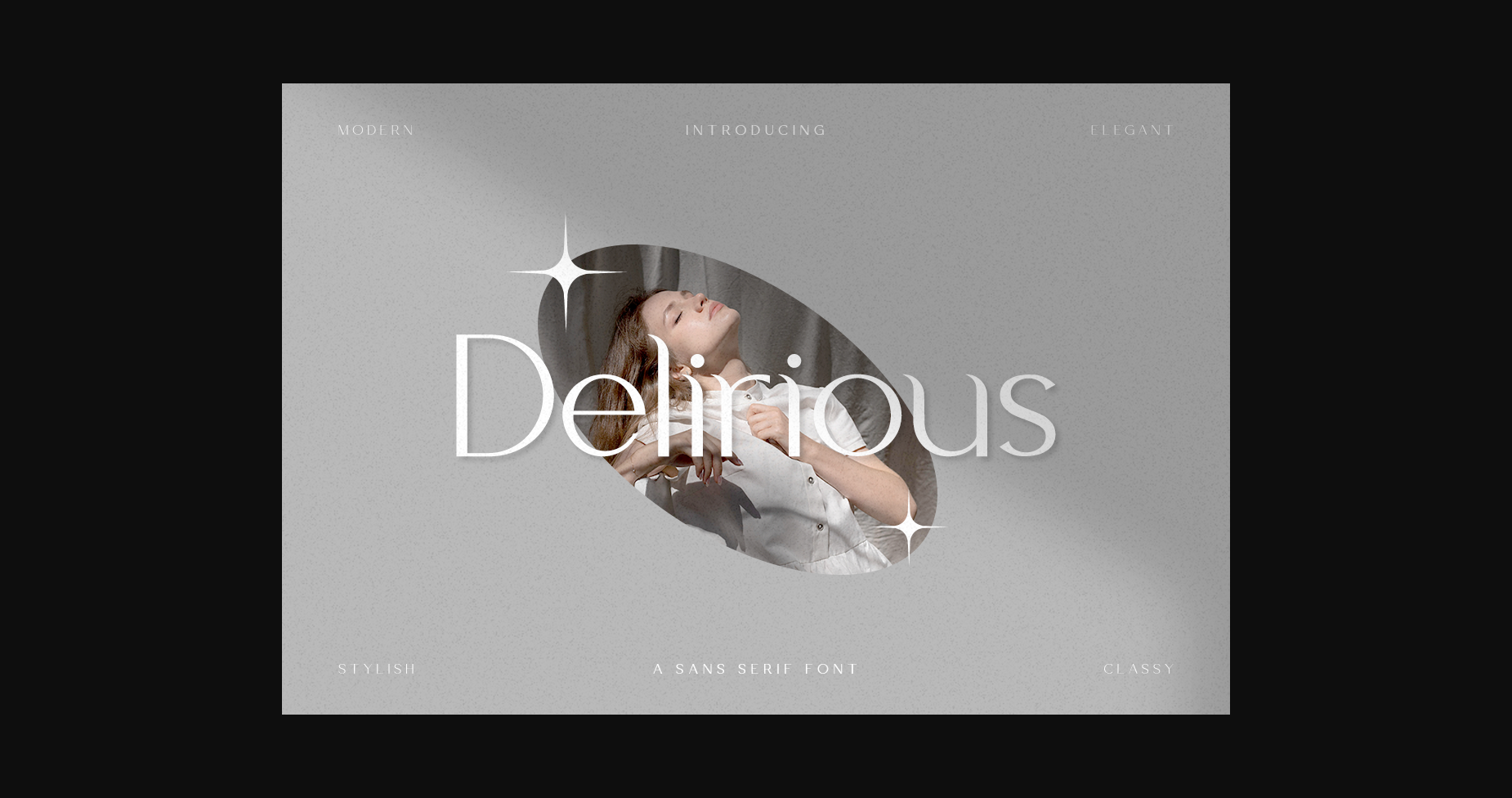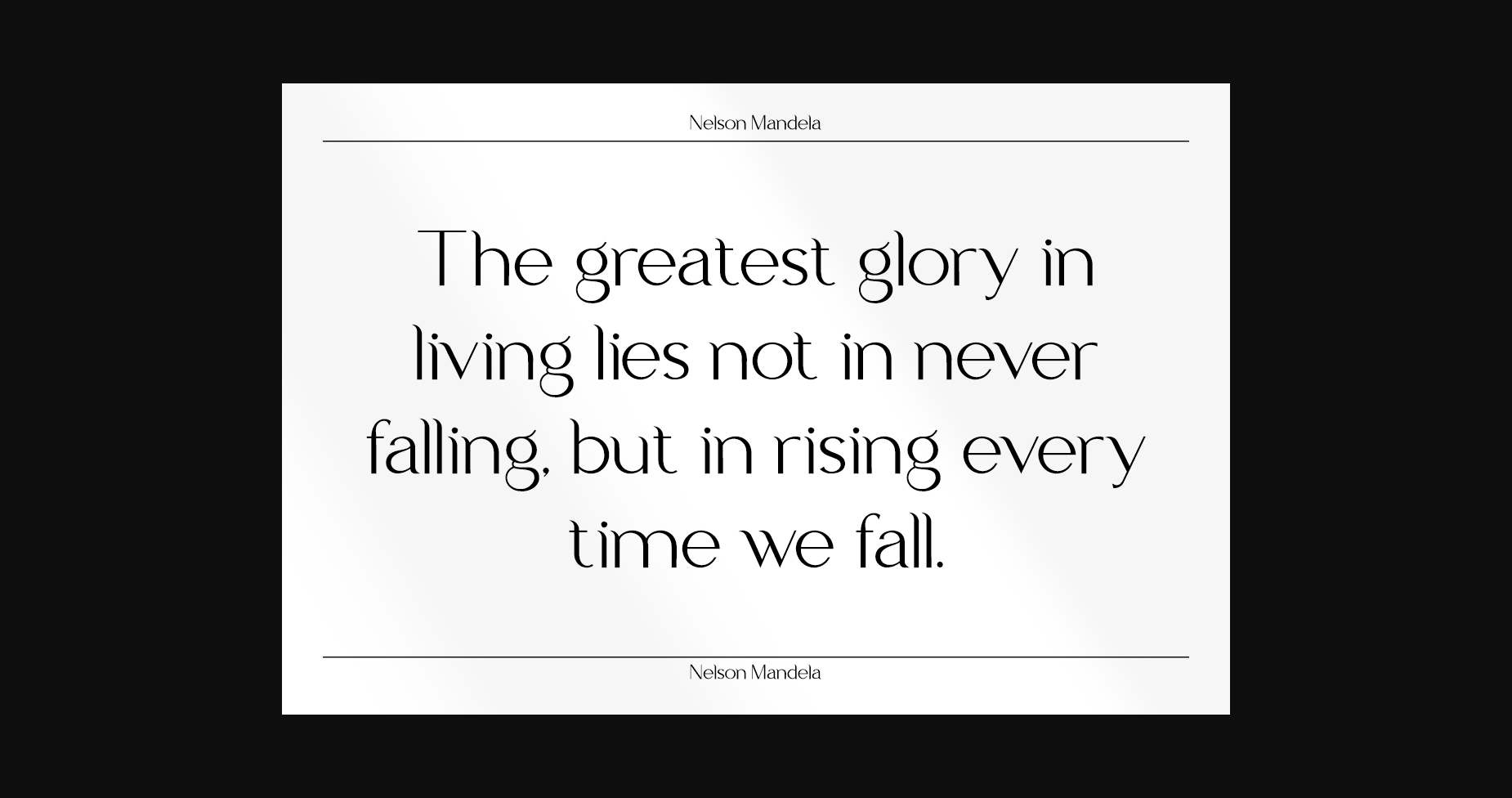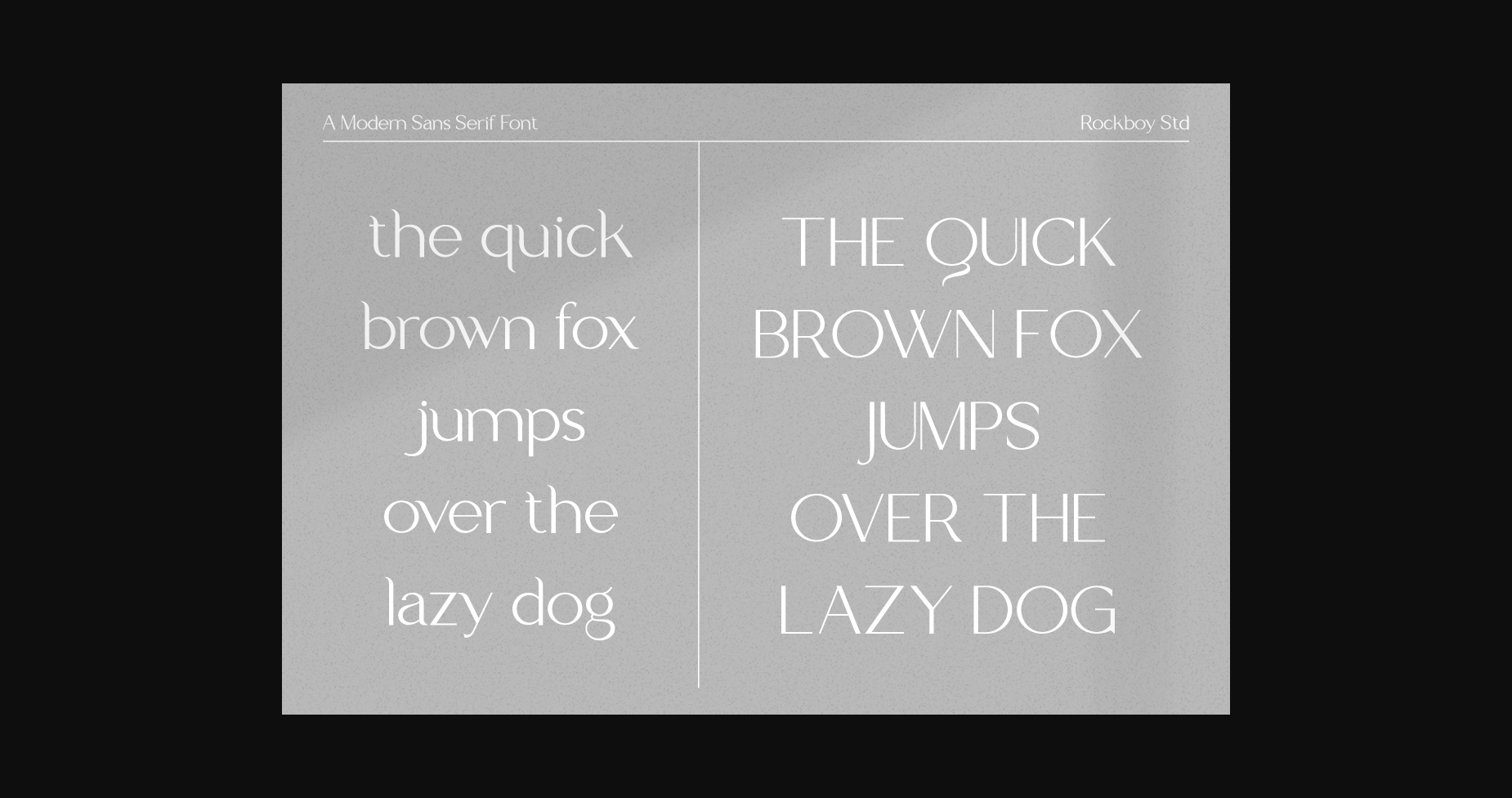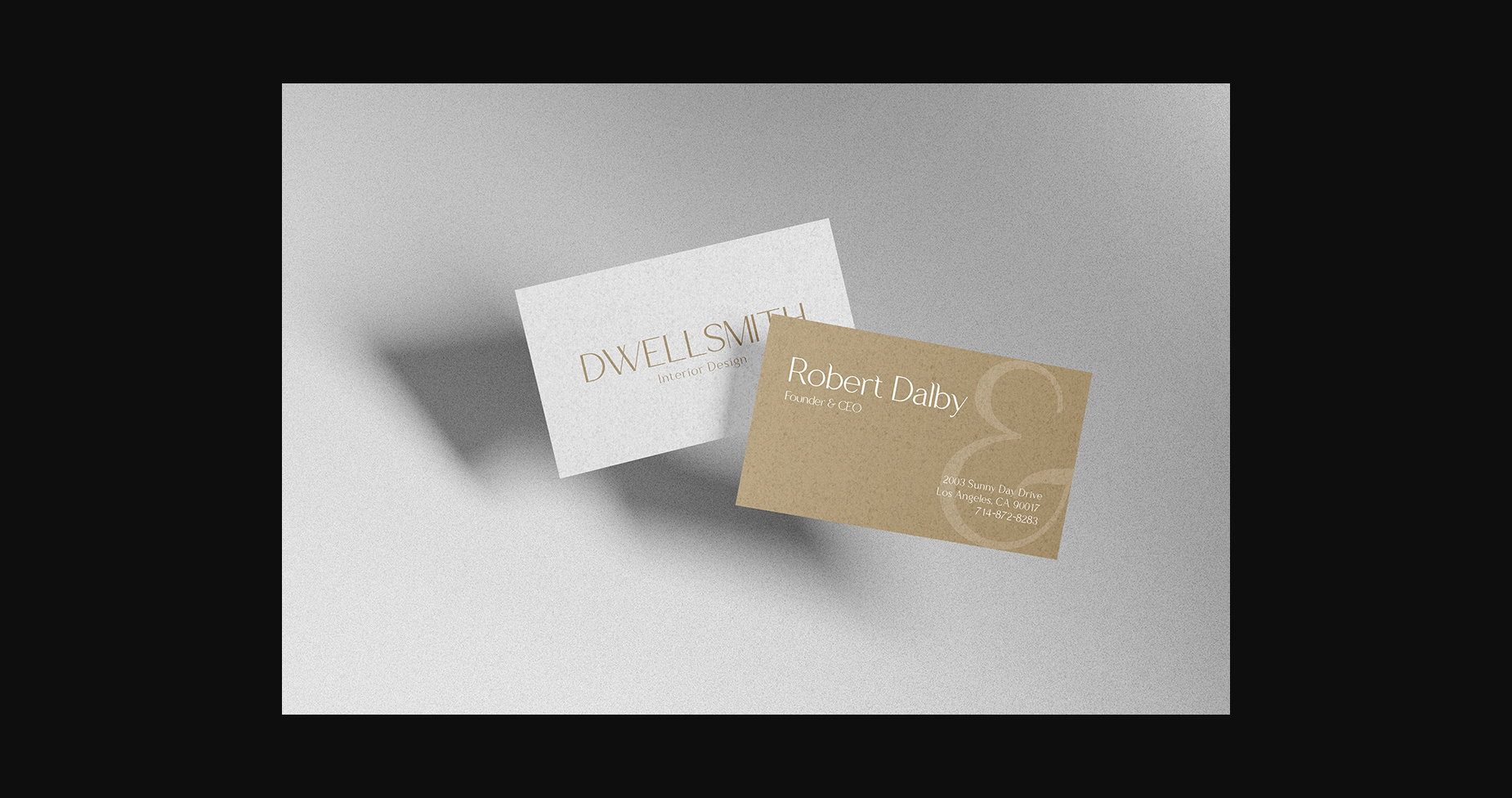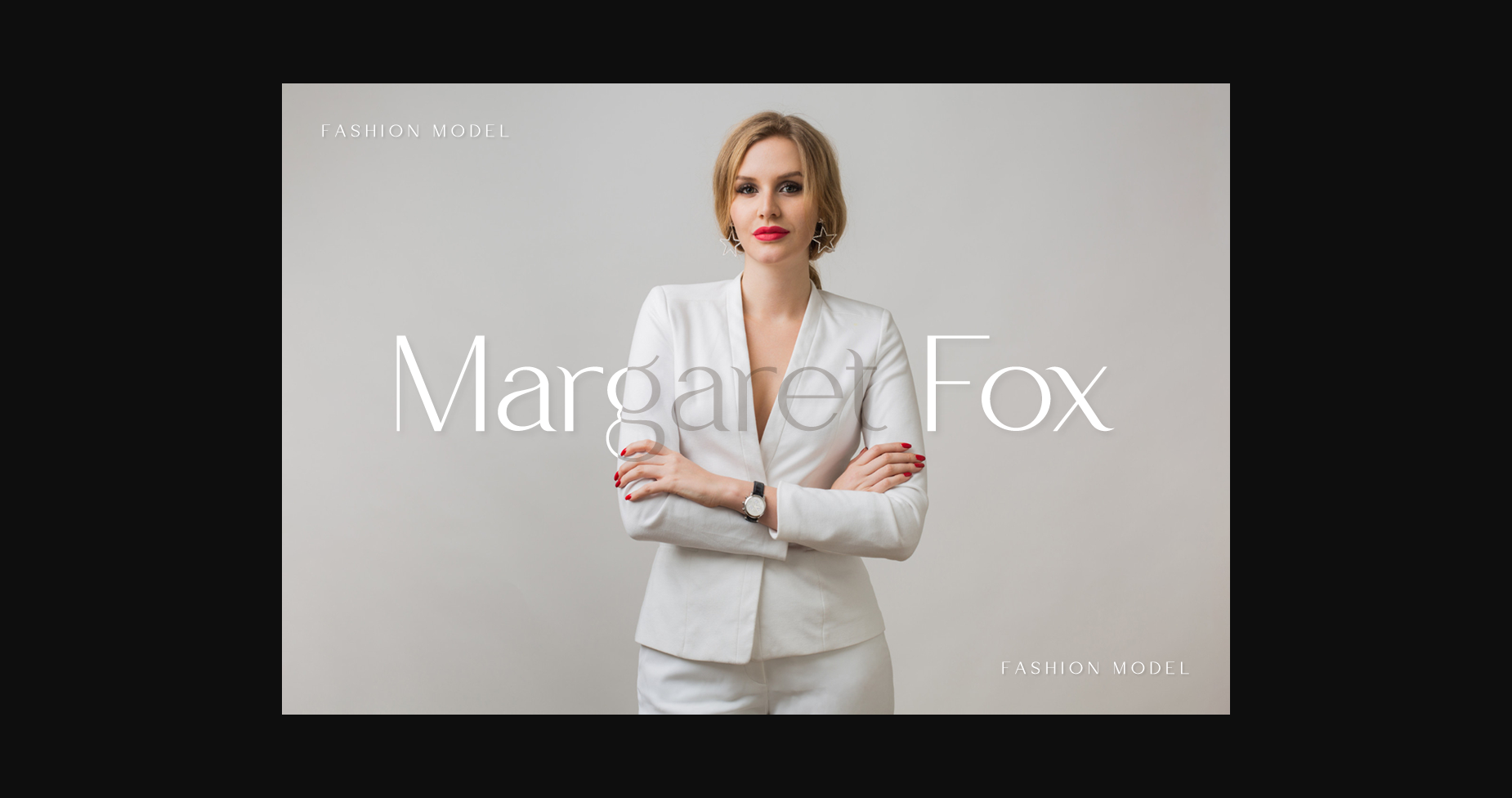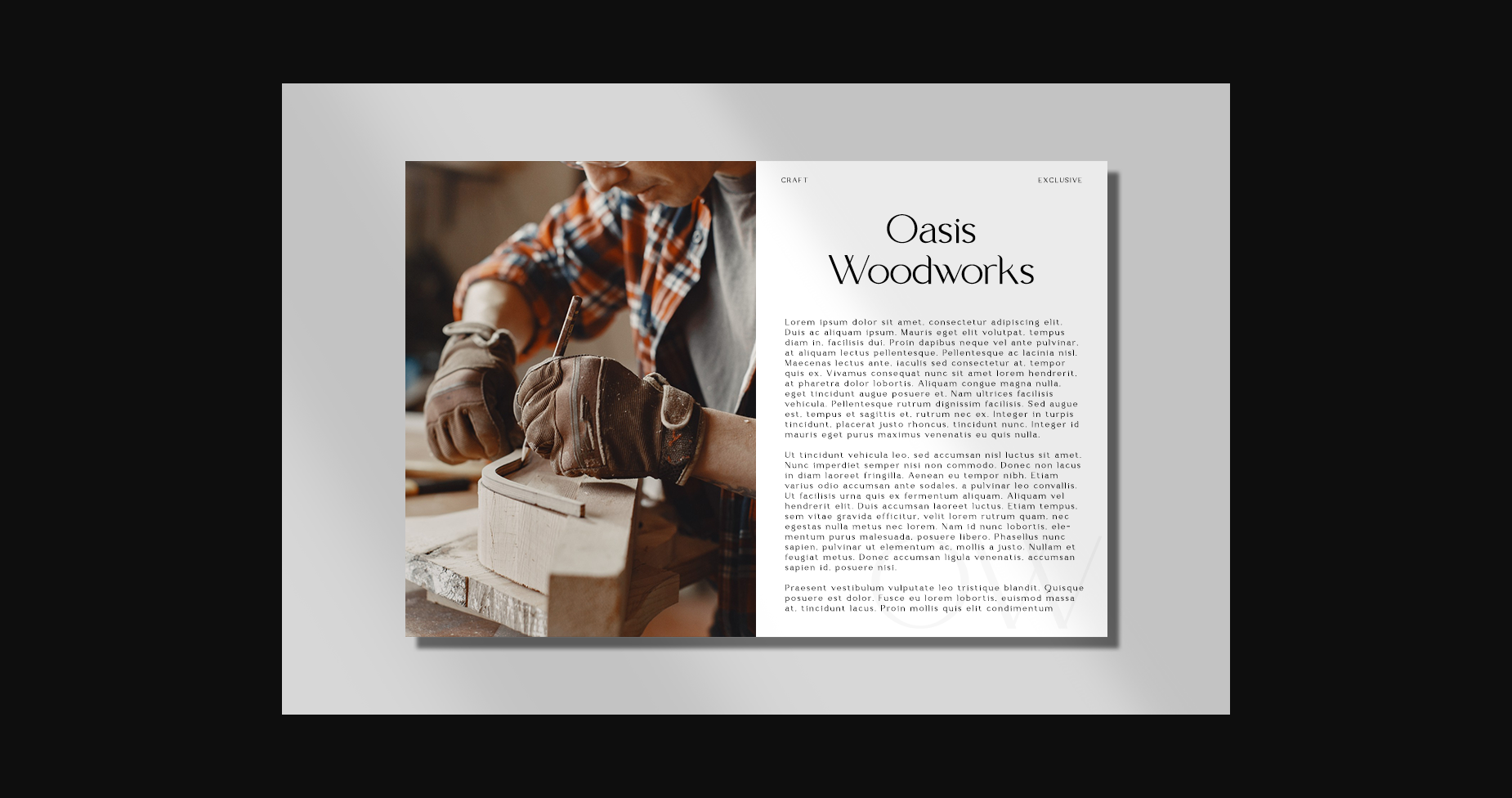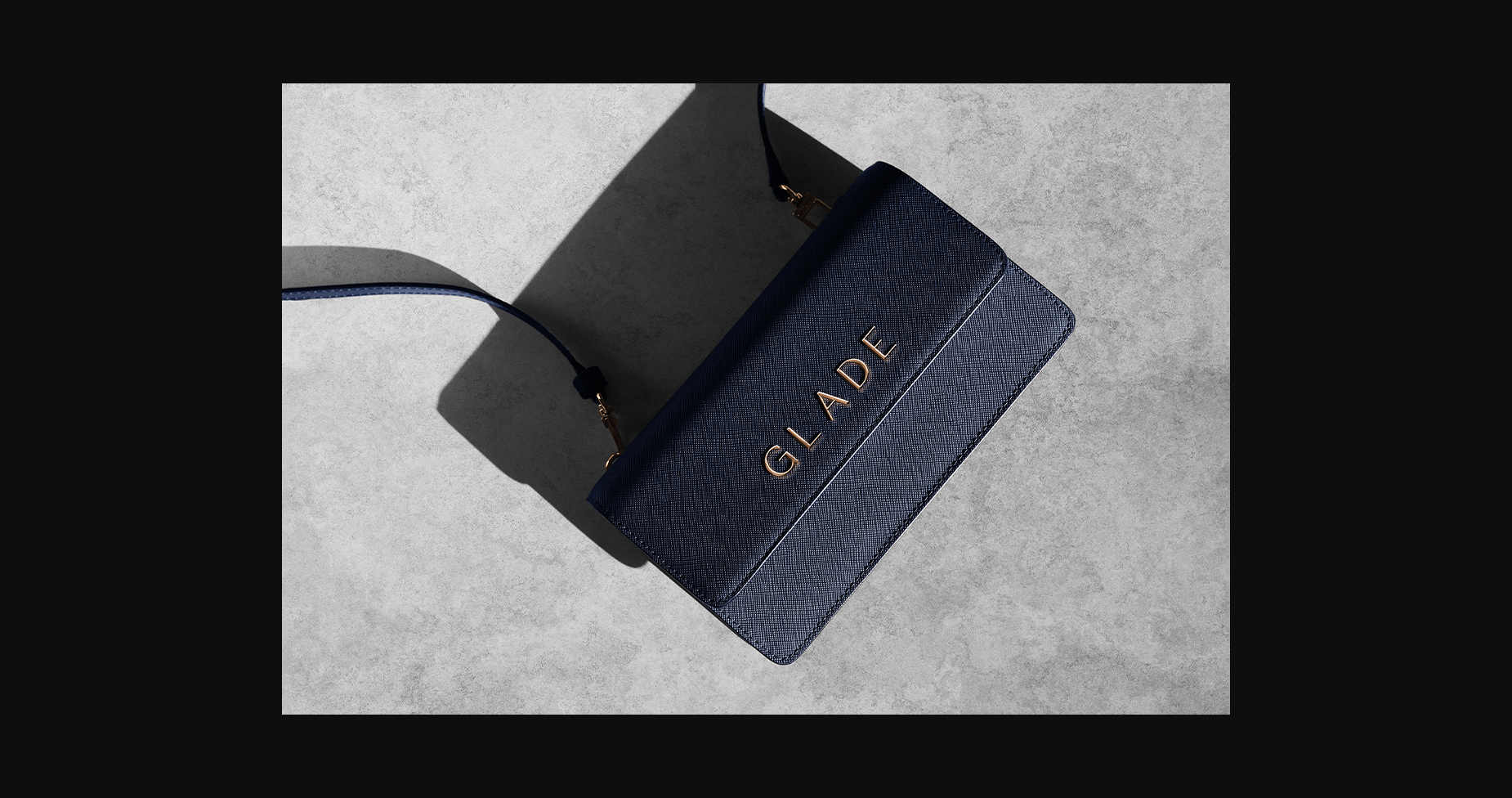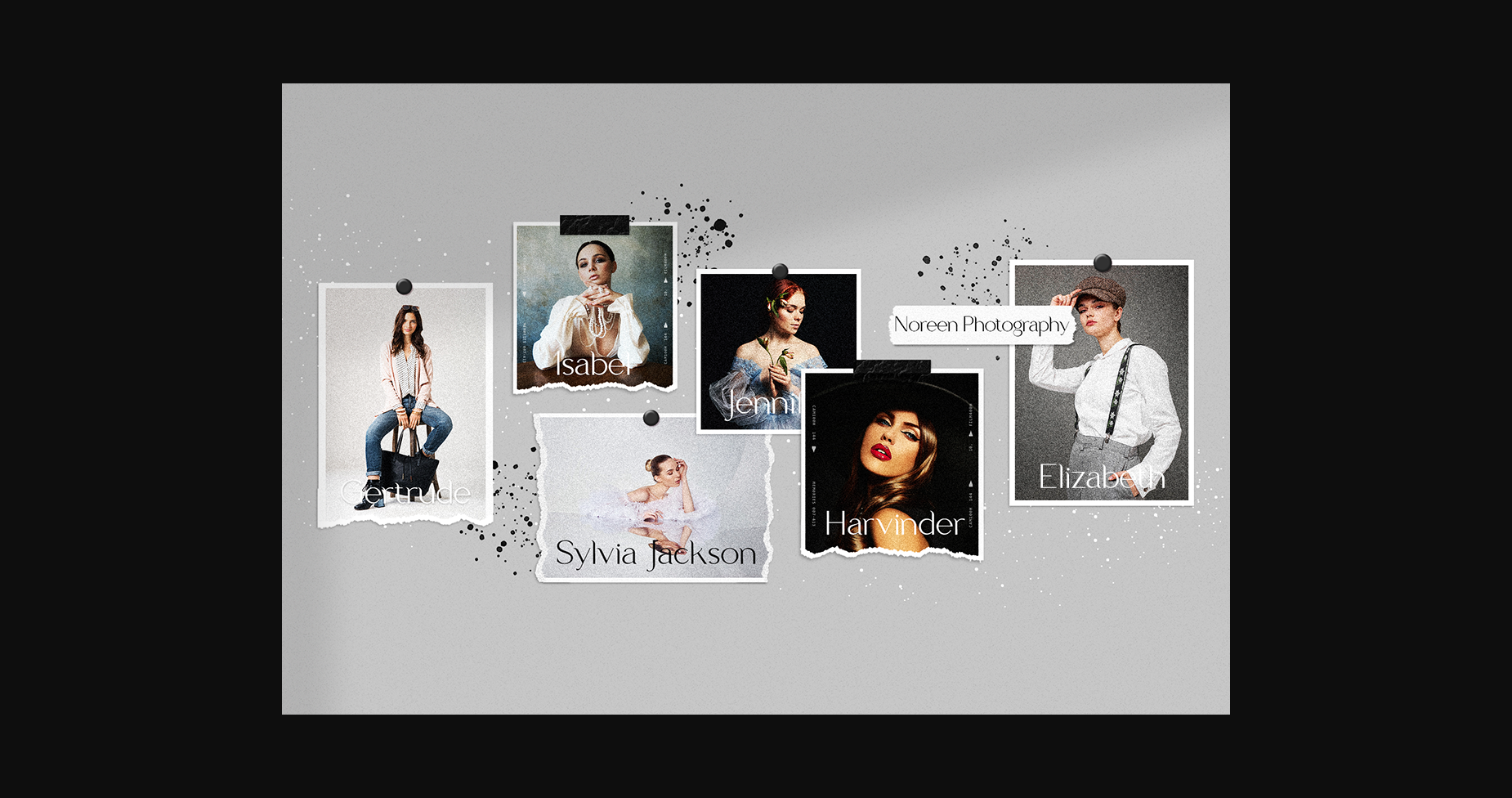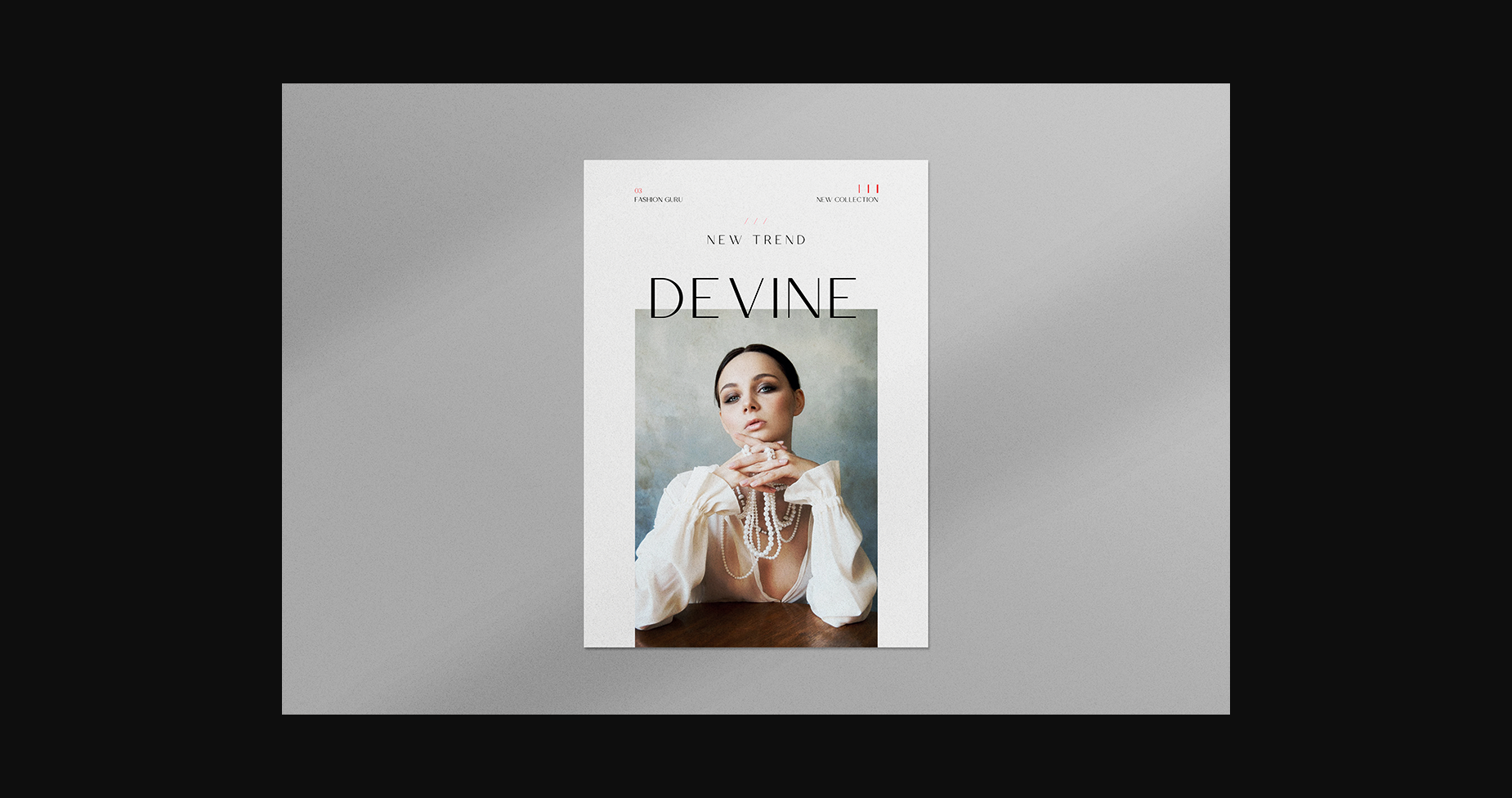
HomeSans Serif FontsDelirious Font Sans Serif Fonts Delirious Font FacebookTwitterPinterestWhatsApp 1 of 11 ... Delirious Font Poster 2... Delirious Font Poster 3... Delirious Font Poster 4... Delirious Font Poster 5... Delirious Font Poster 6... Delirious Font Poster 7... Delirious Font Poster 8... Delirious Font Poster 9... Delirious Font Poster 10... Delirious Font Poster 11... About Delirious Font Delirious is a minimal and neat sans serif font. It can easily be matched to various projects, so add it to your most creative ideas and notice how it makes them stand out! DOWNLOAD NOW 220 0 People also explored Brilliant Soulmate Font Highlands Dream Font Just Like That Font Rossella Butterfly Monogram Font Night Time Font Matane Font The Warcopy Font Speciality Font Signature Vintage Font Cordenilo Font Billion Time Font Bianca Font TagsDelirious Font Previous articleGratelos FontNext articleCamaufalge Font LEAVE A REPLY Cancel reply Comment: Please enter your comment! Name:* Please enter your name here Email:* You have entered an incorrect email address! Please enter your email address here Website: Save my name, email, and website in this browser for the next time I comment. BLOG Font Trends 2025: Top Typography Styles for Spring Best Free Fonts for Logo Design in 2025 (Stylish & Professional) Free Fonts Risk: Why Free Fonts Can Be Dangerous for Designers Where to Buy American Fonts Online in 2024 Personal Use Free Charlie Personal Use Free Read more BD Algebra Personal Use Free Read more Calega Personal Use Free Read more Rookie Mastering Personal Use Free Read more